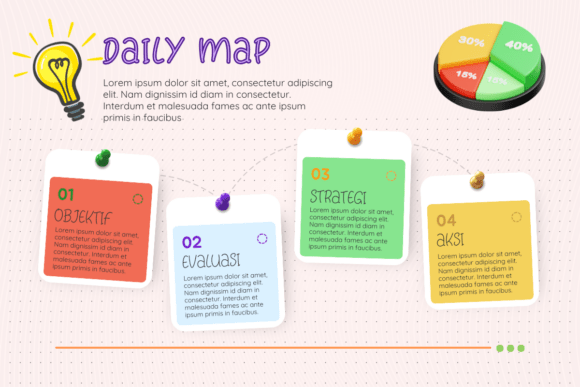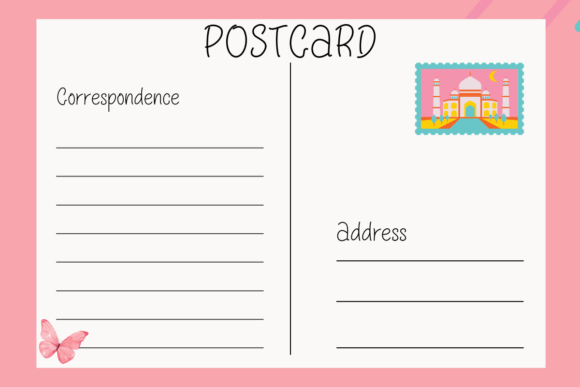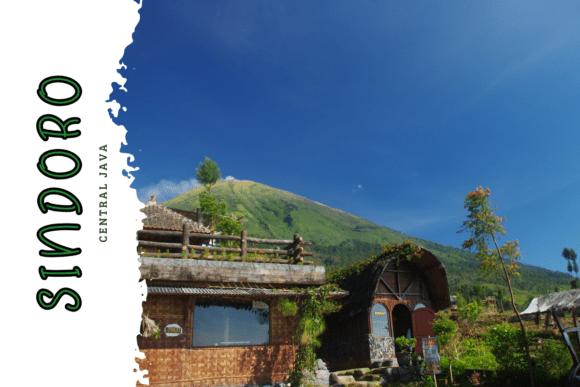
Introduction to Lady Magenta Font
Lady Magenta is a stunning handwritten font that exudes elegance with its delicate and graceful style.
Its smooth, flowing strokes and perfectly balanced proportions make it ideal for adding a refined and personal touch to any design Perfect for wedding invitations, branding, or sophisticated stationery, Lady Magenta seamlessly blends charm and simplicity, creating a unique and memorable impression in every detail.
Key Features of Lady Magenta Font
Why Choose Lady Magenta Font?
Lady Magenta Font offers exceptional quality and versatility, making it a valuable addition to your design toolkit. Whether you’re creating for personal projects or commercial use, Lady Magenta Font delivers professional results.